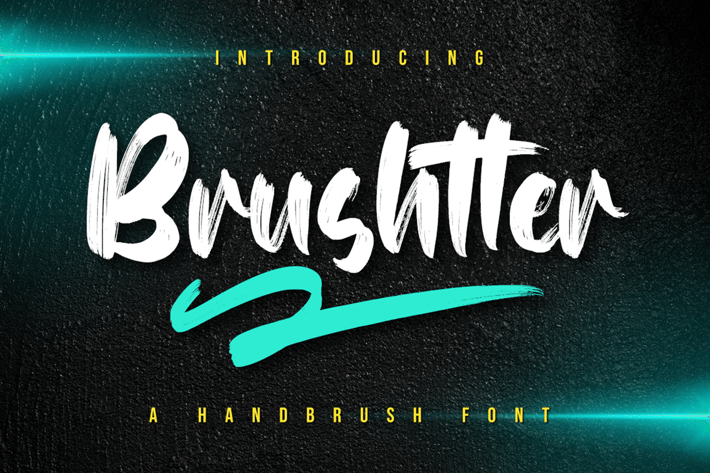
Brushtter - Brush Font
Brushtter is a modern brushed display font, incredibly adaptable to all sorts of urban or street related designs. It is suitable for any branding, product packaging, invitation, quote, label, poster, logo that you wish to create.